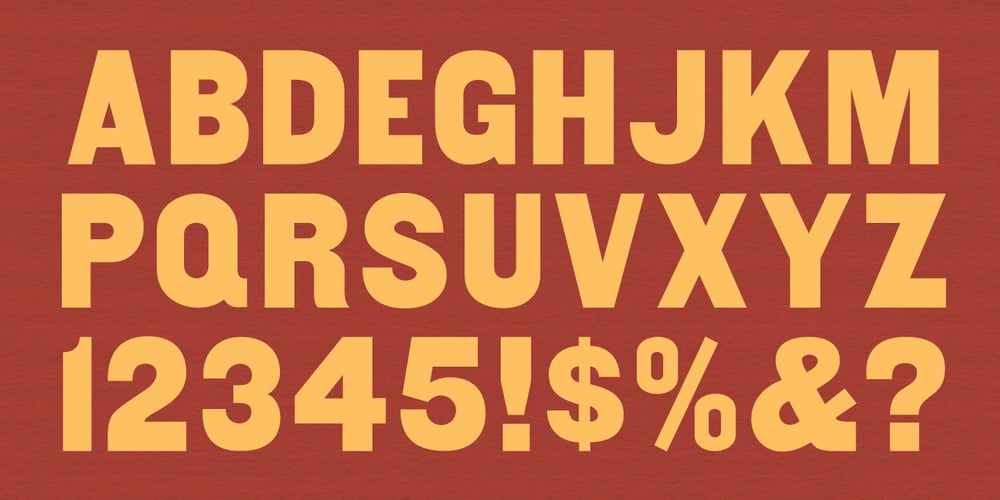
MPI Gothic
MPI Gothic font
MPI Gothic Font Family was designed by published by mpressInteractive. MPI Gothic contains 3 styles and family package options. Gothic is a basic sans serif with thick strokes and minimal contrast. Designs of this nature first appeared in wood type catalogs around the 1840s, and proved extremely popular in advertising and broadside printing. This version is based on a wood type design manufactured by Hamilton Manufacturing Company.